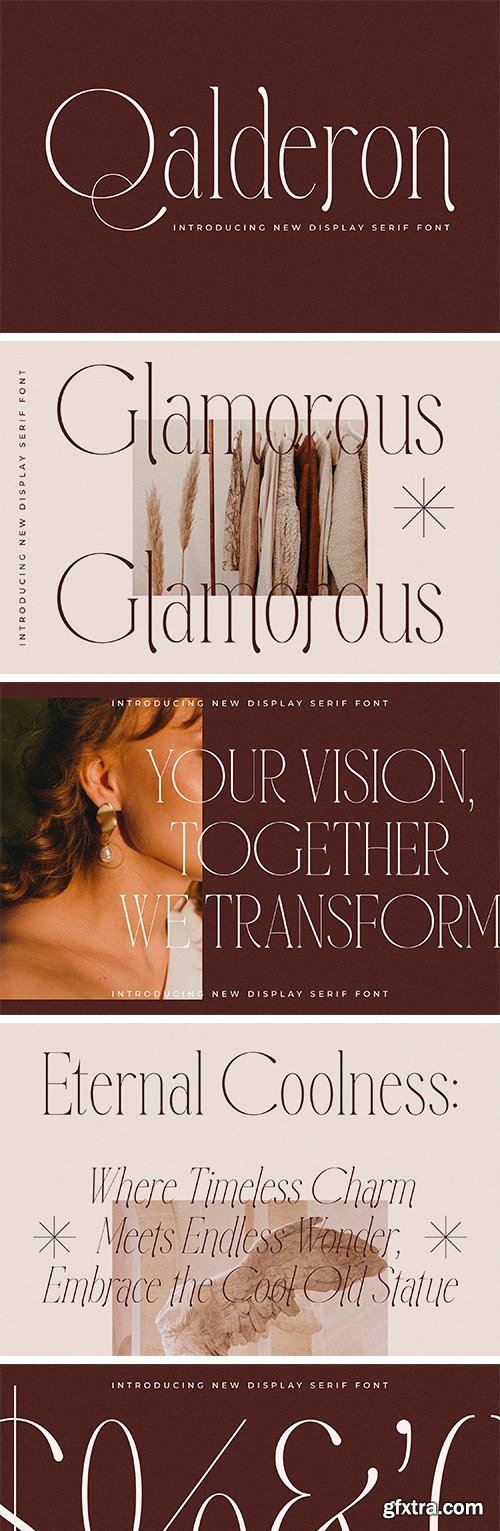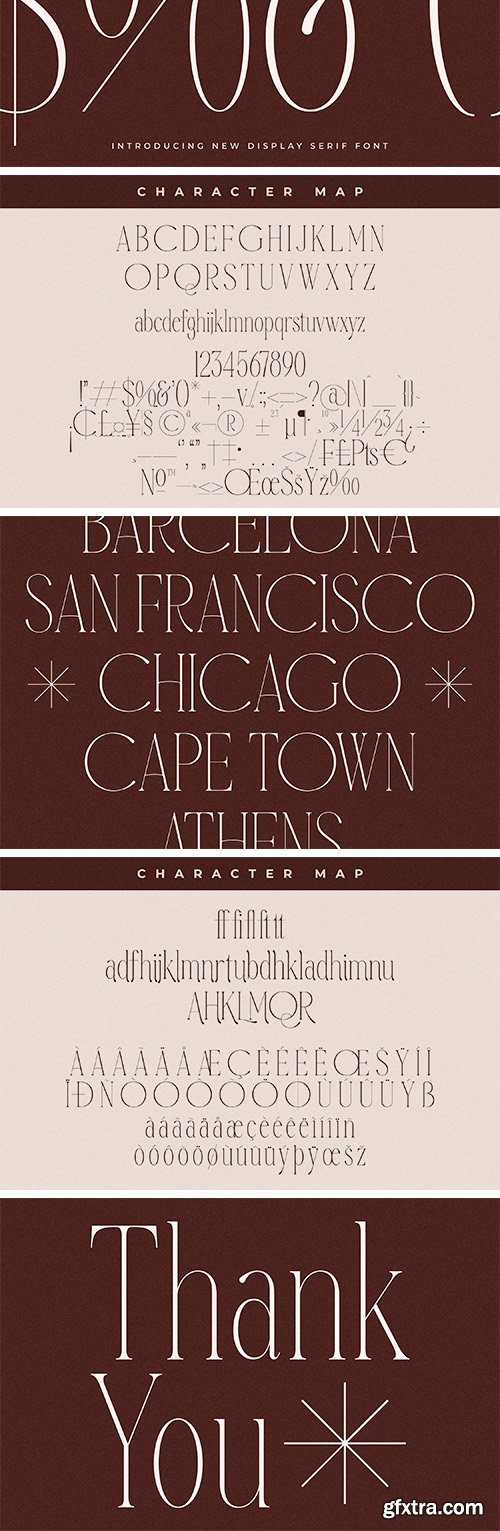
加德里昂 - 罗马字体
Proudly present Qalderon Typeface , created by Storytype. A serif modern and classic typeface that has own unique style & modern look. This typeface is perfect for an elegant & luxury logo, book or movie title design, fashion brand, magazine, clothes, lettering, quotes, and so much more.